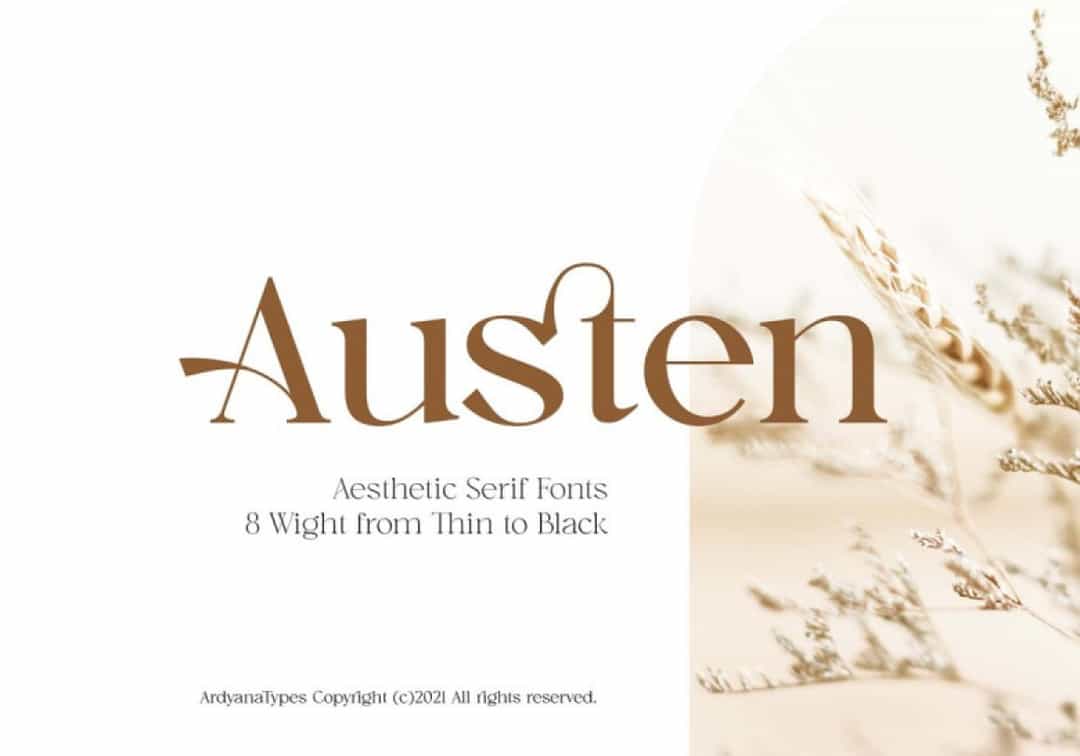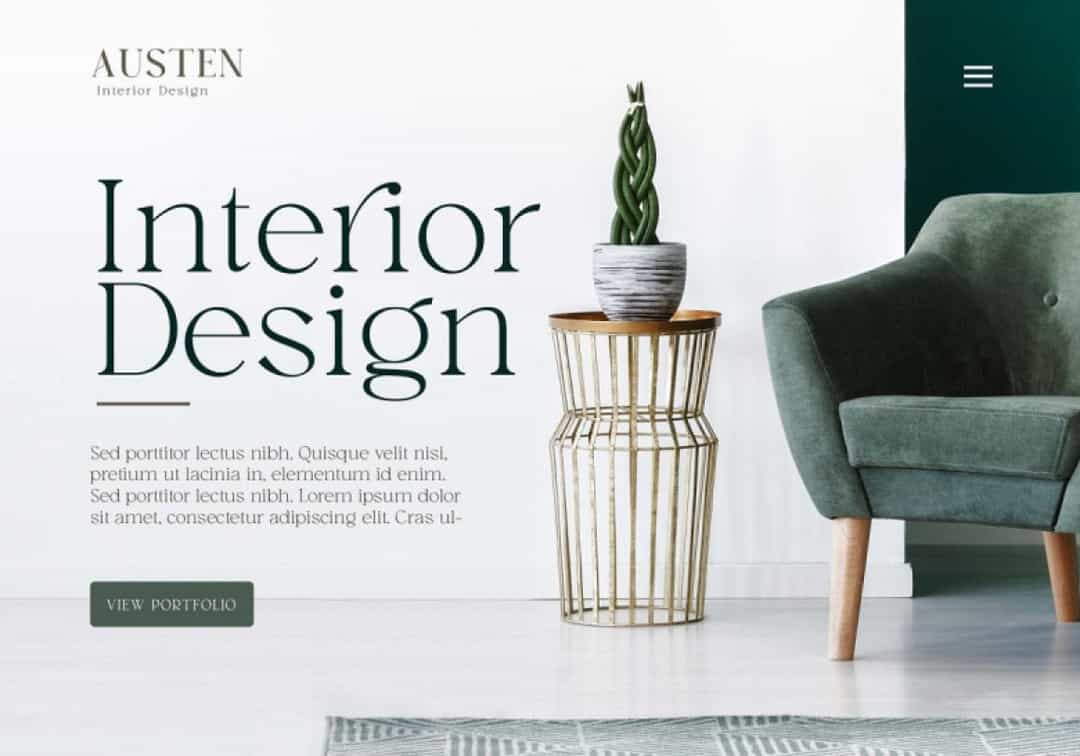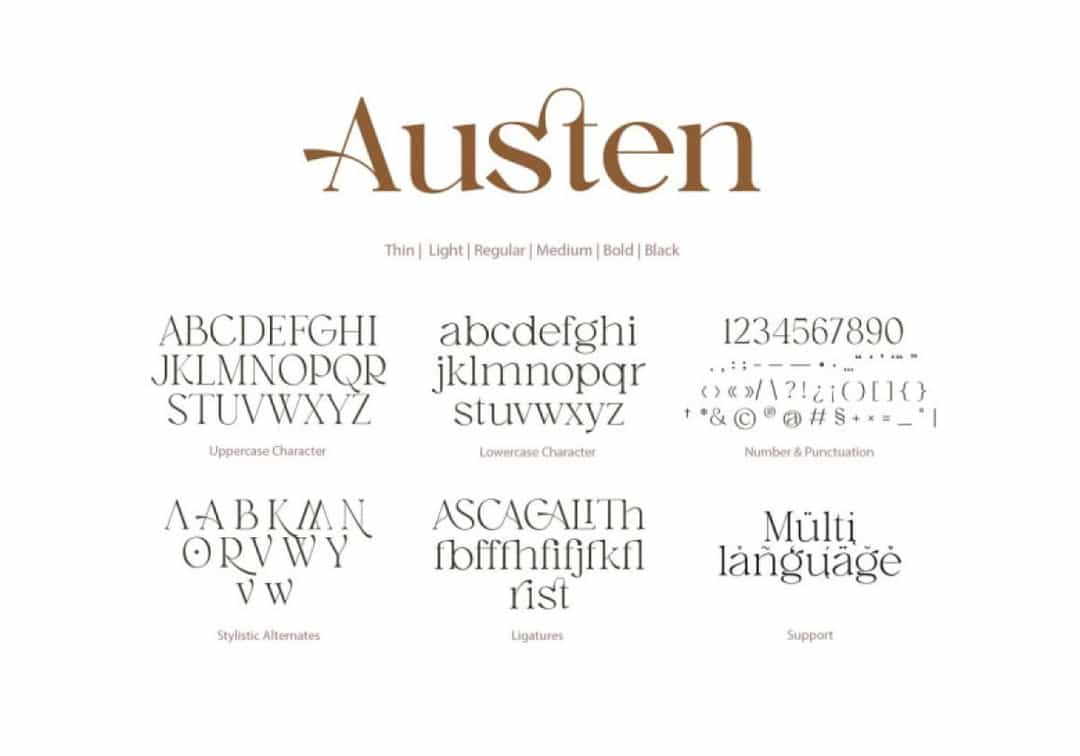
Austen Font is an elegant font with modern yet sophisticated serif type font design and eight levels of thickness from thin to black that can meet all your professional requirements. Austen offers modern professional features which create elegant branding for companies or projects in business; additionally it works well alongside contemporary serifs or scripts and adds classy appearance. Austen offers multiple dialects to make its use easy across any language or country.